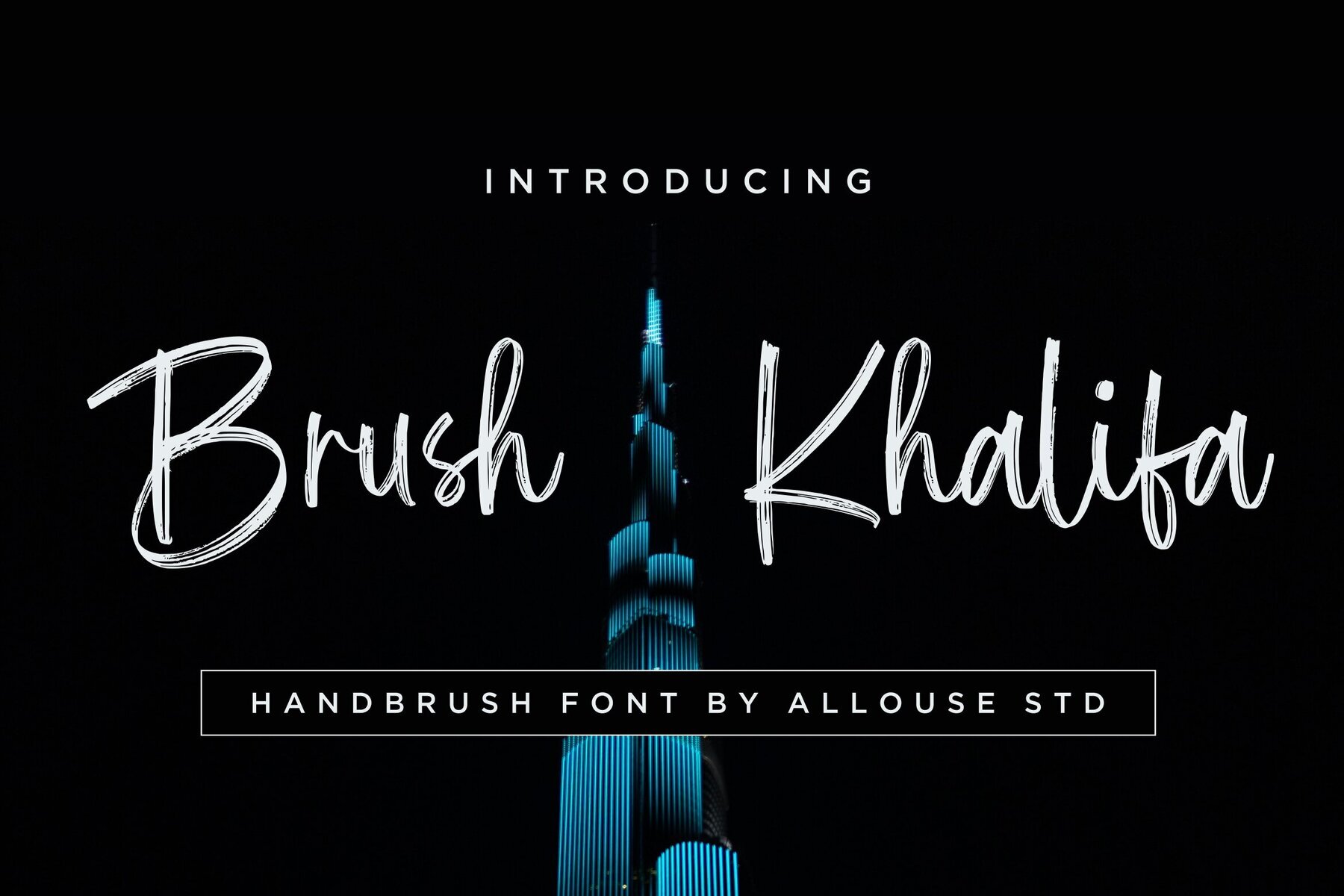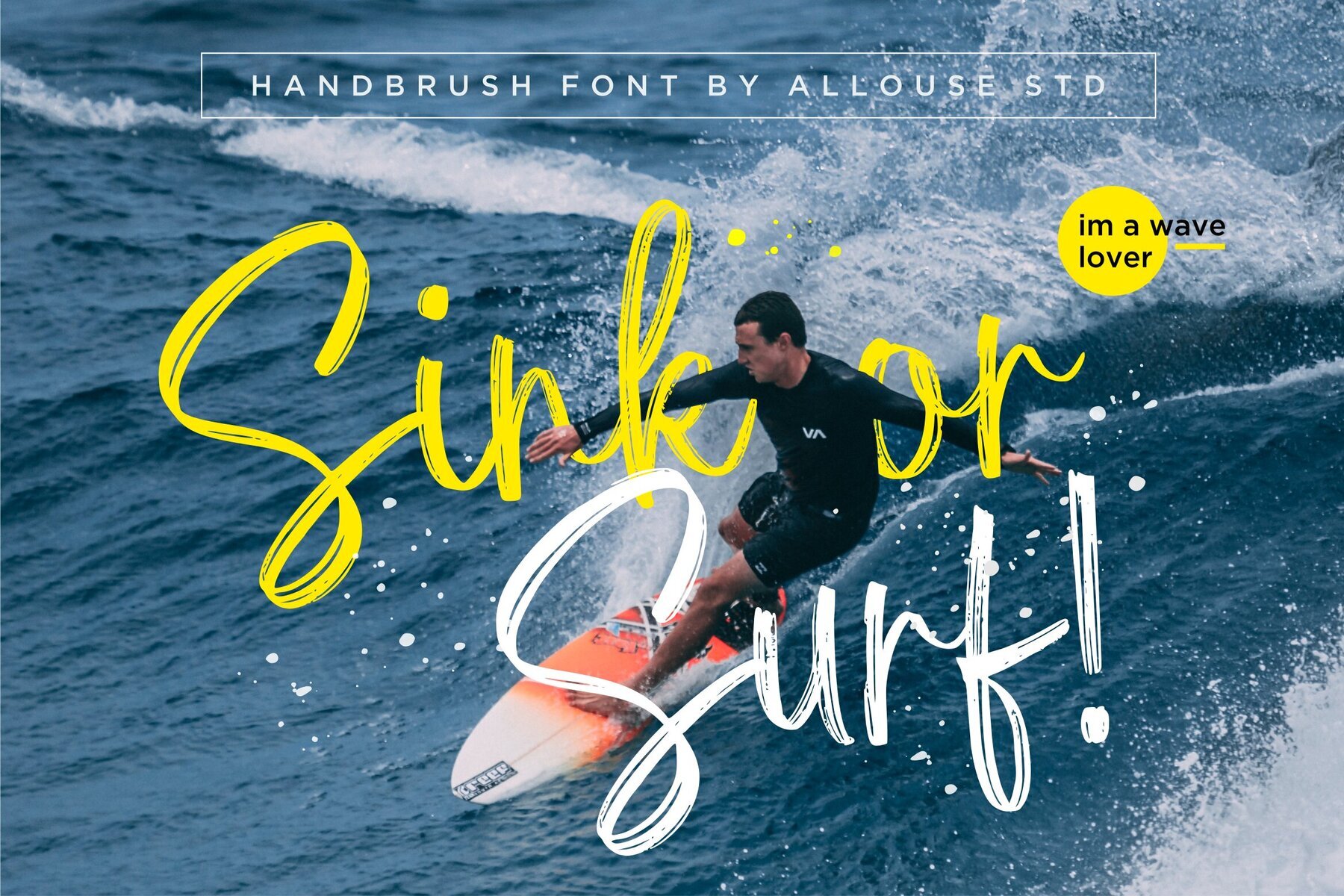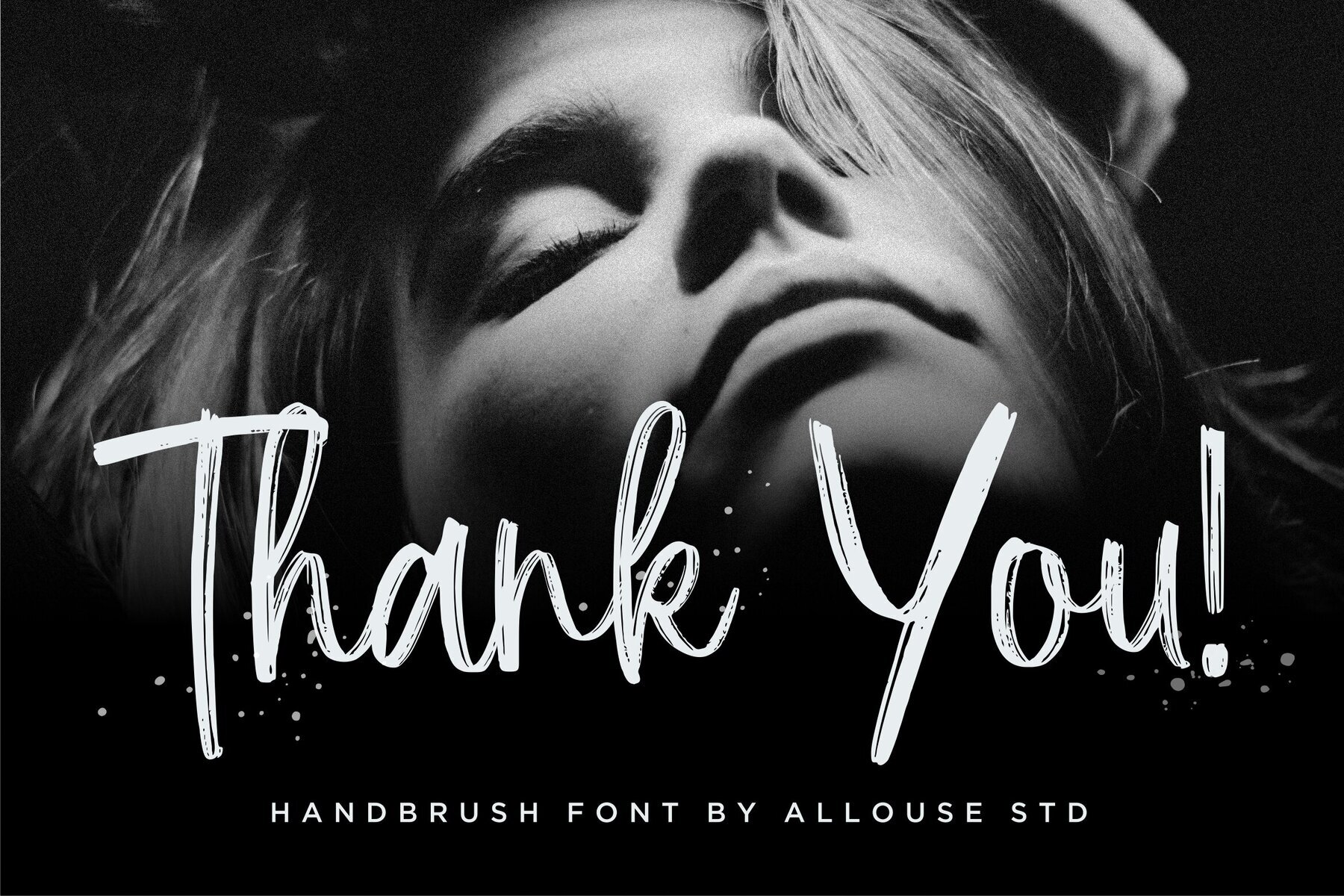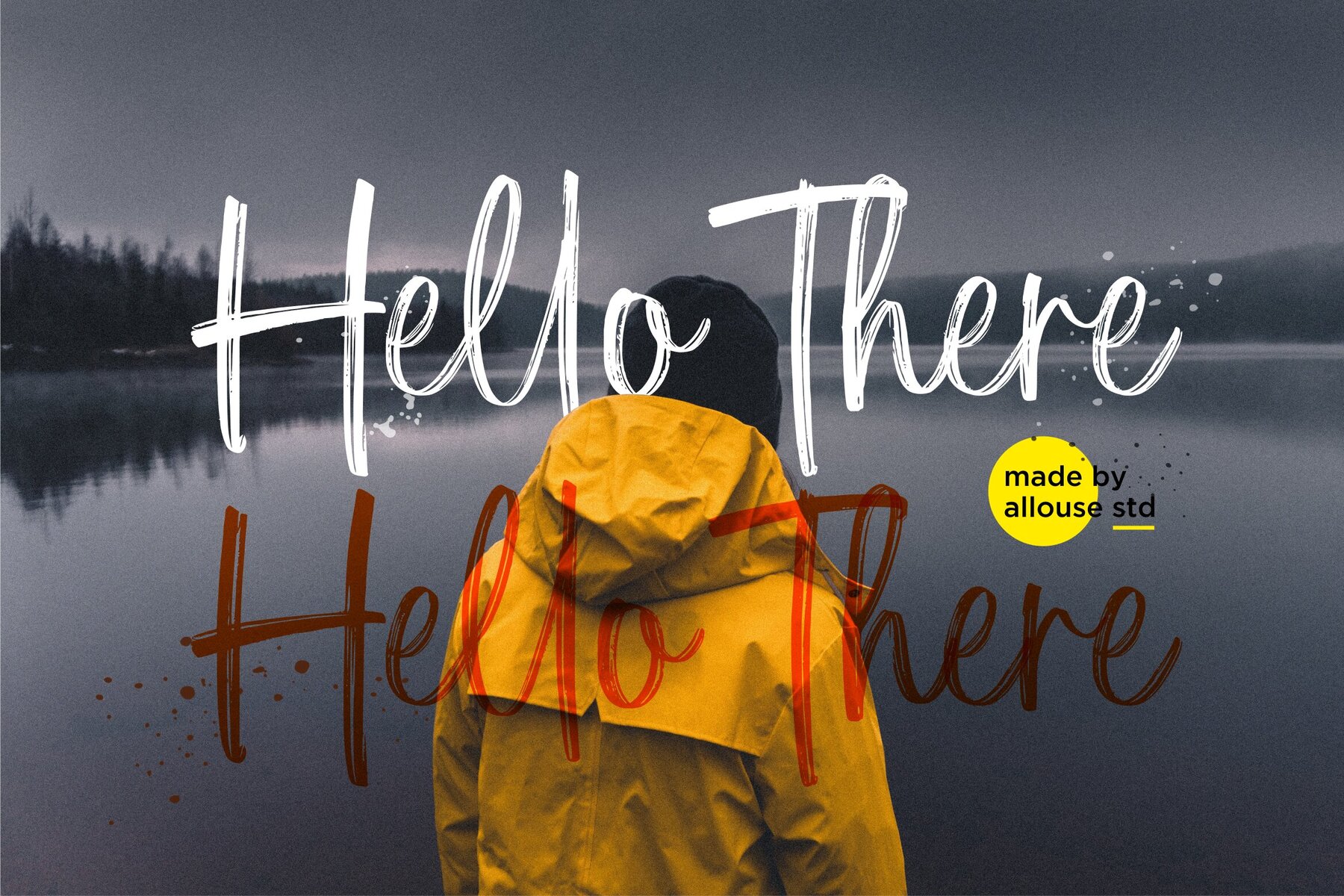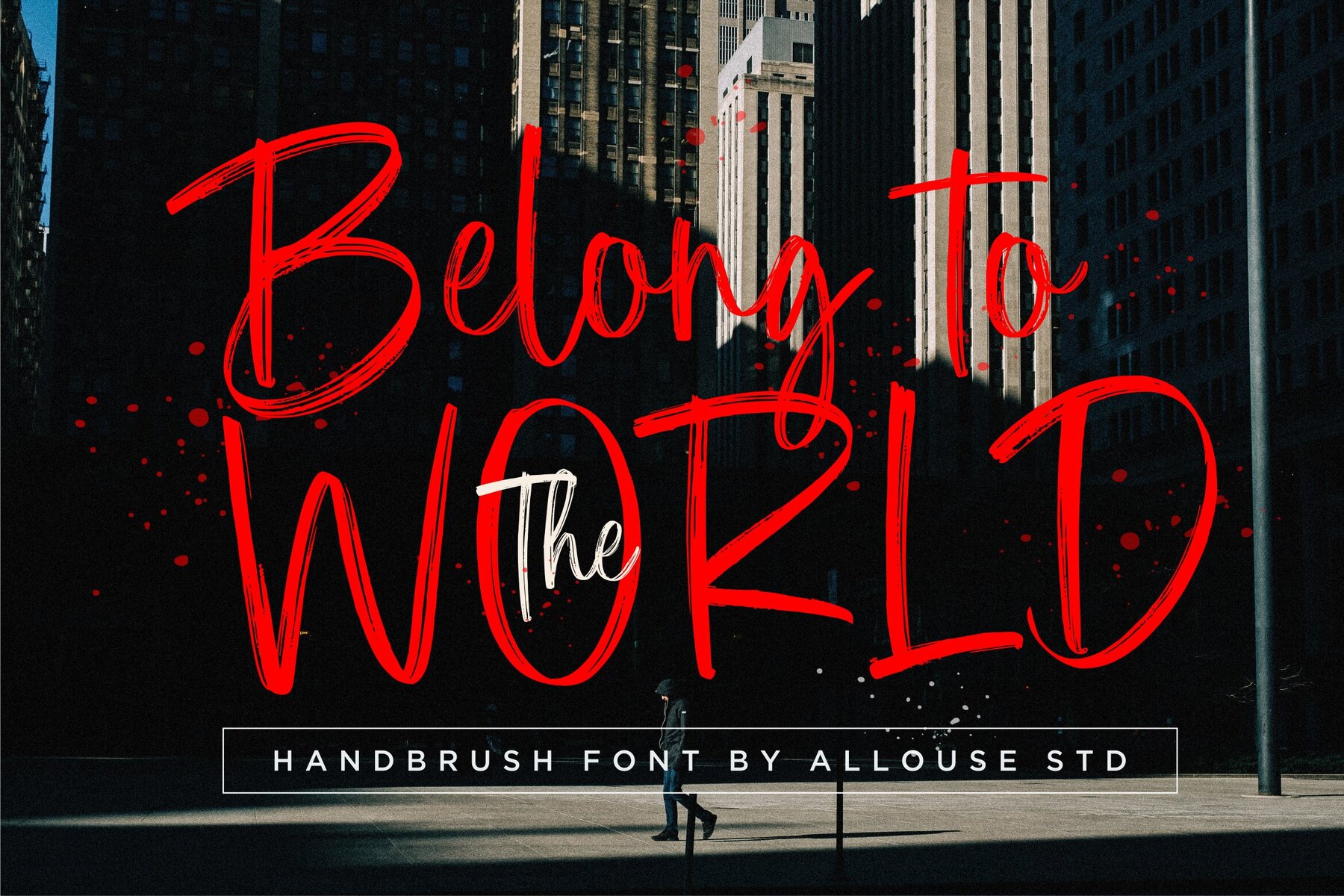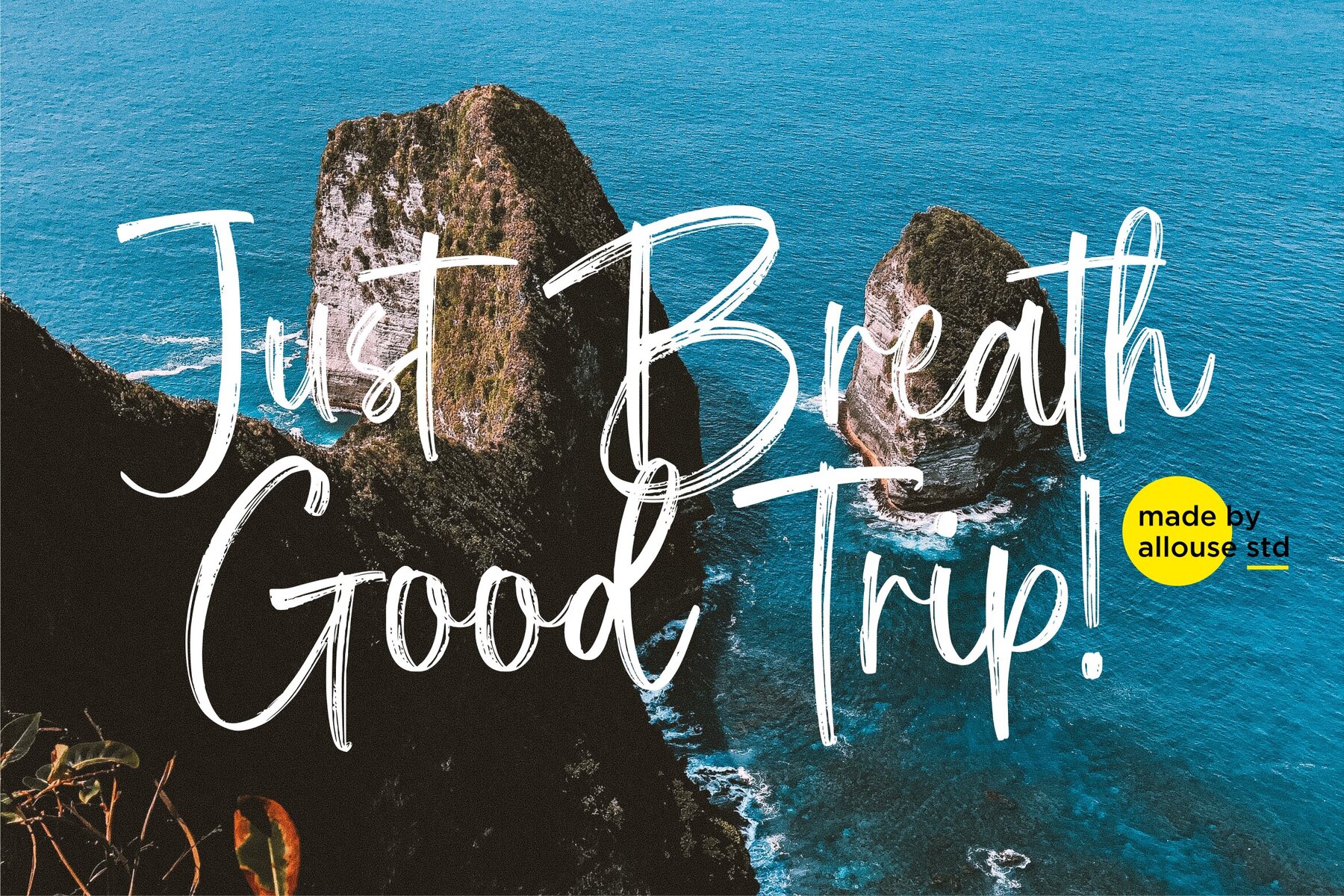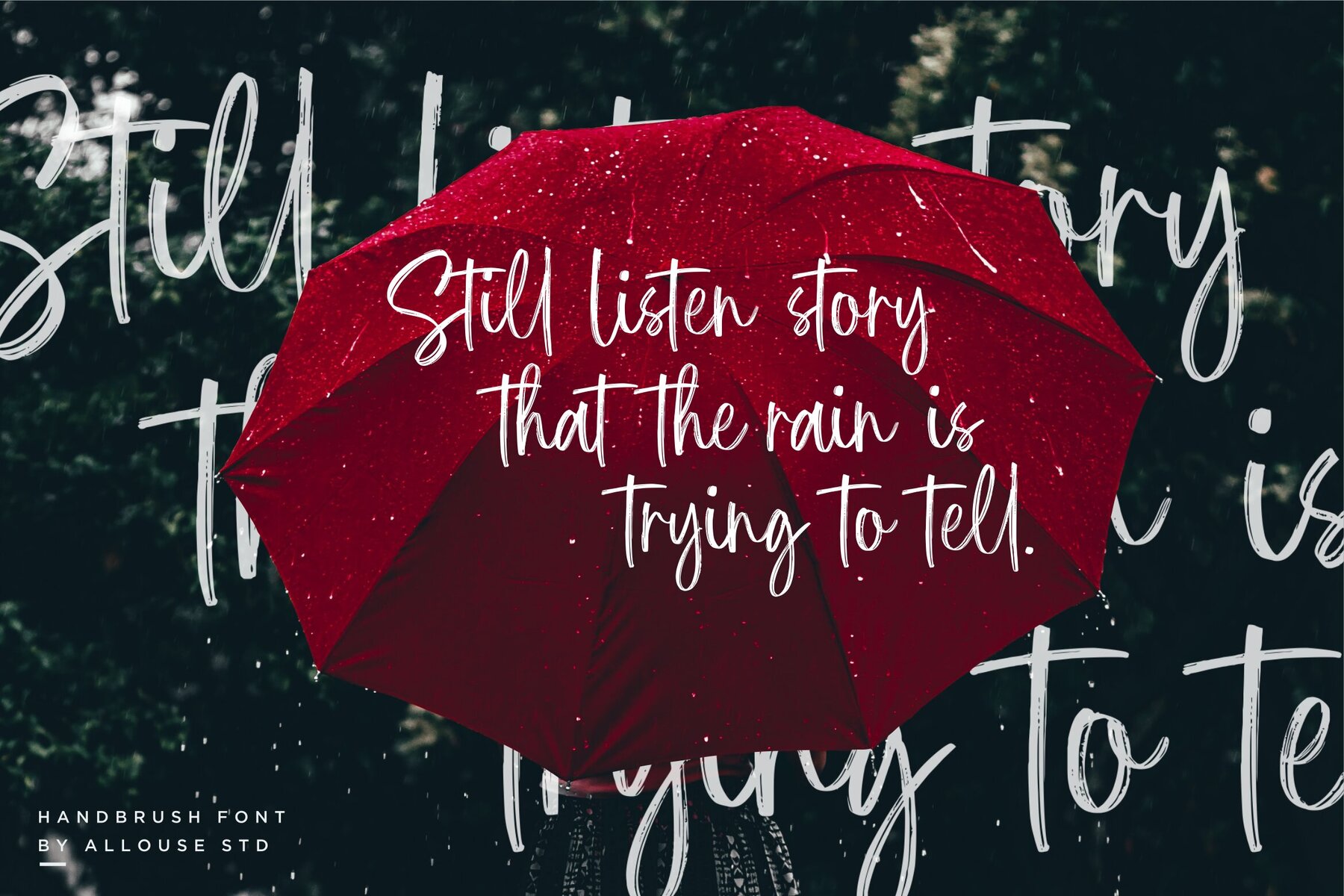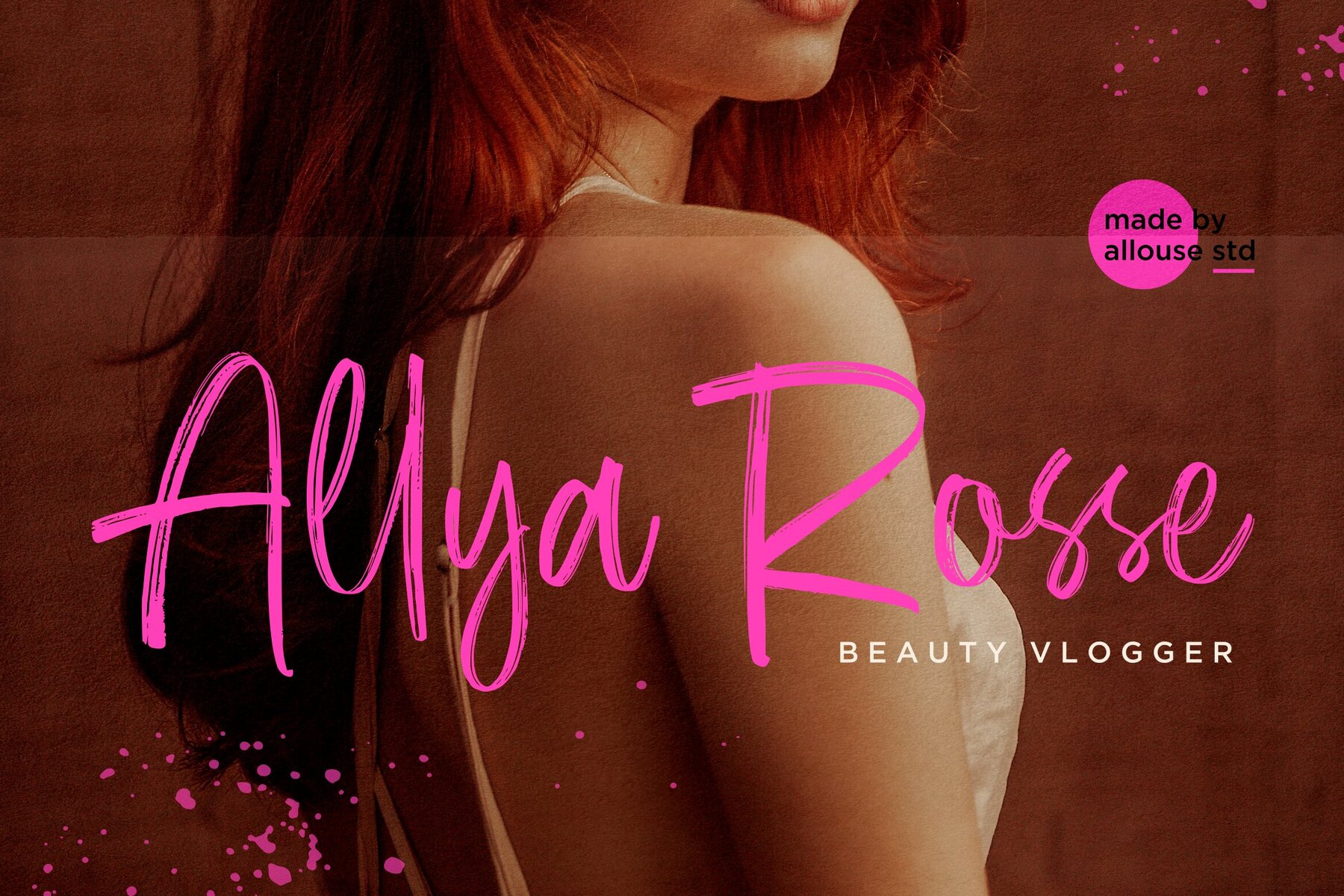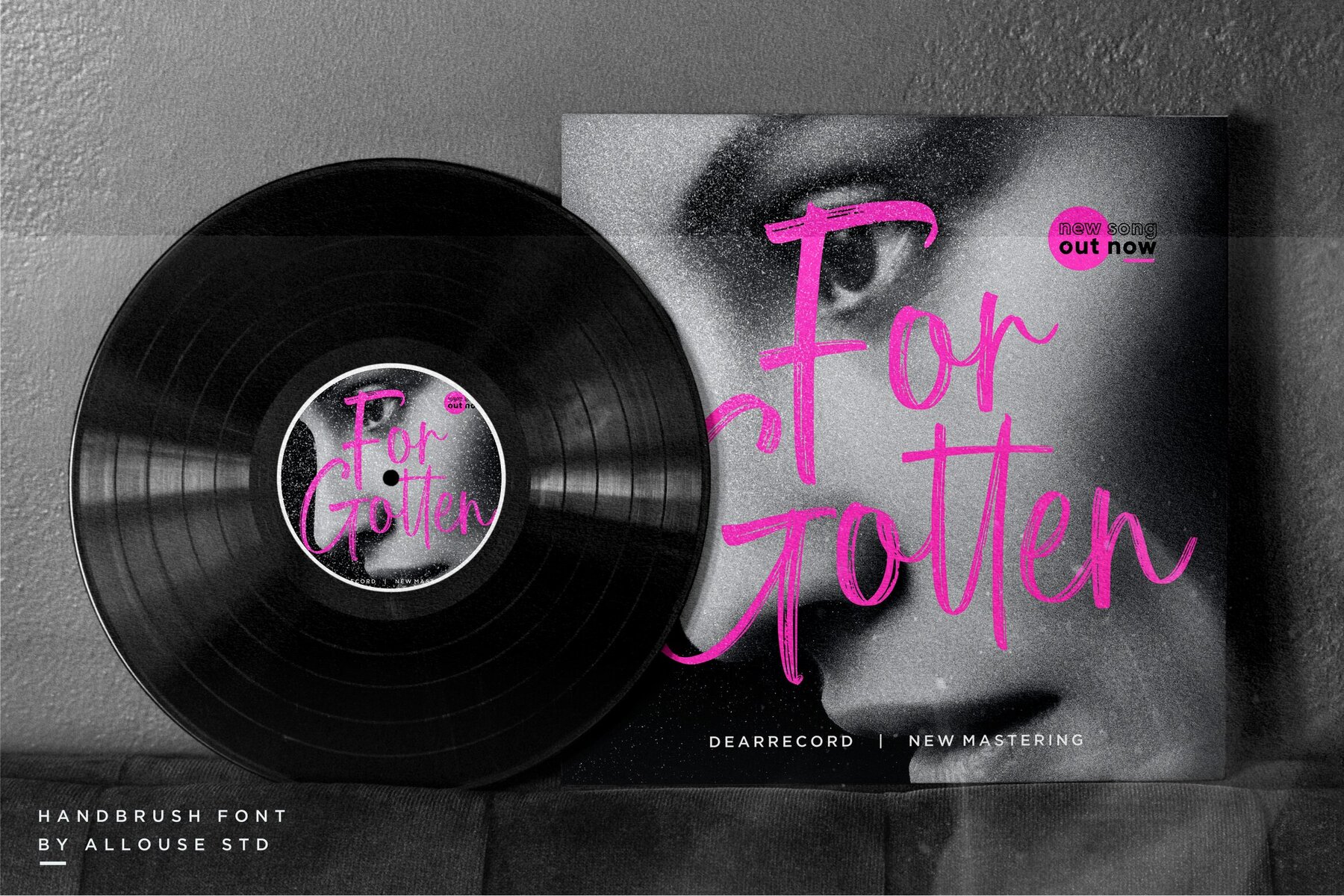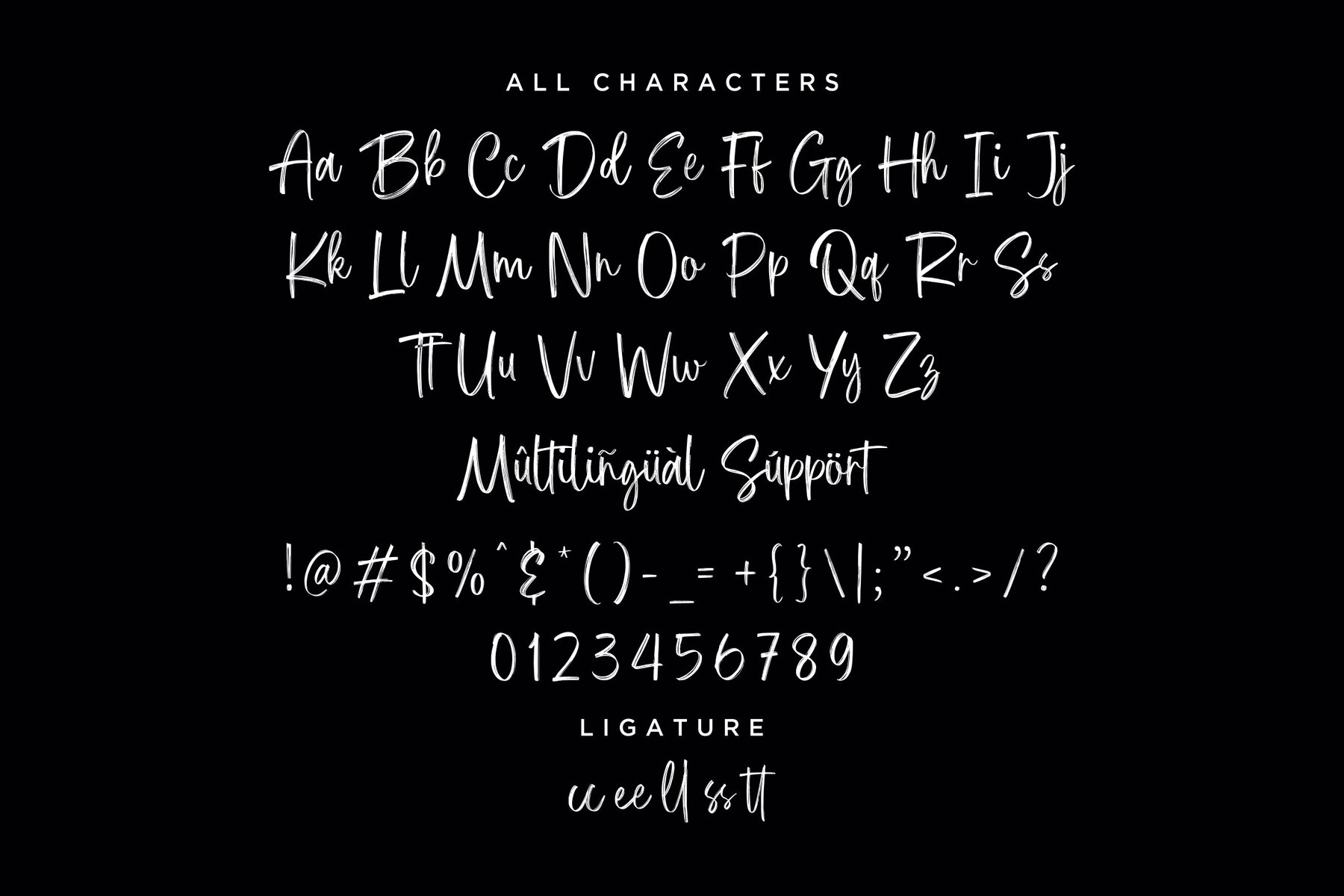
Brush Khalifa Font
Brush Khalifa
Brush Khalifa is a versatile handbrush font ideal for various design needs. Whether you're working on product packaging, branding projects, magazines, or social media, Brush Khalifa adds a unique touch. Its artistic flair is also perfect for wedding invitations or as a decorative element to convey words dramatically above any background.Brush Khalifa: Handbrush Font for Dynamic Designs